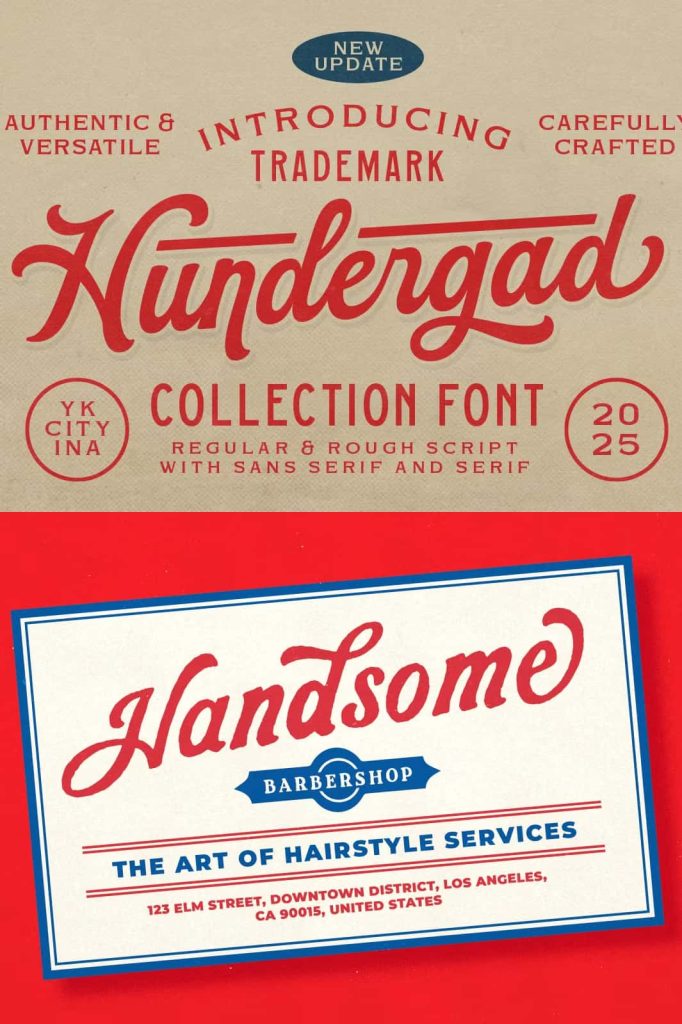
UPDATE – Hundergad Collection FontleastedOctober 3, 2025Fonts Hundergad is now updated from a single script font into a complete vintage-inspired collection. Download